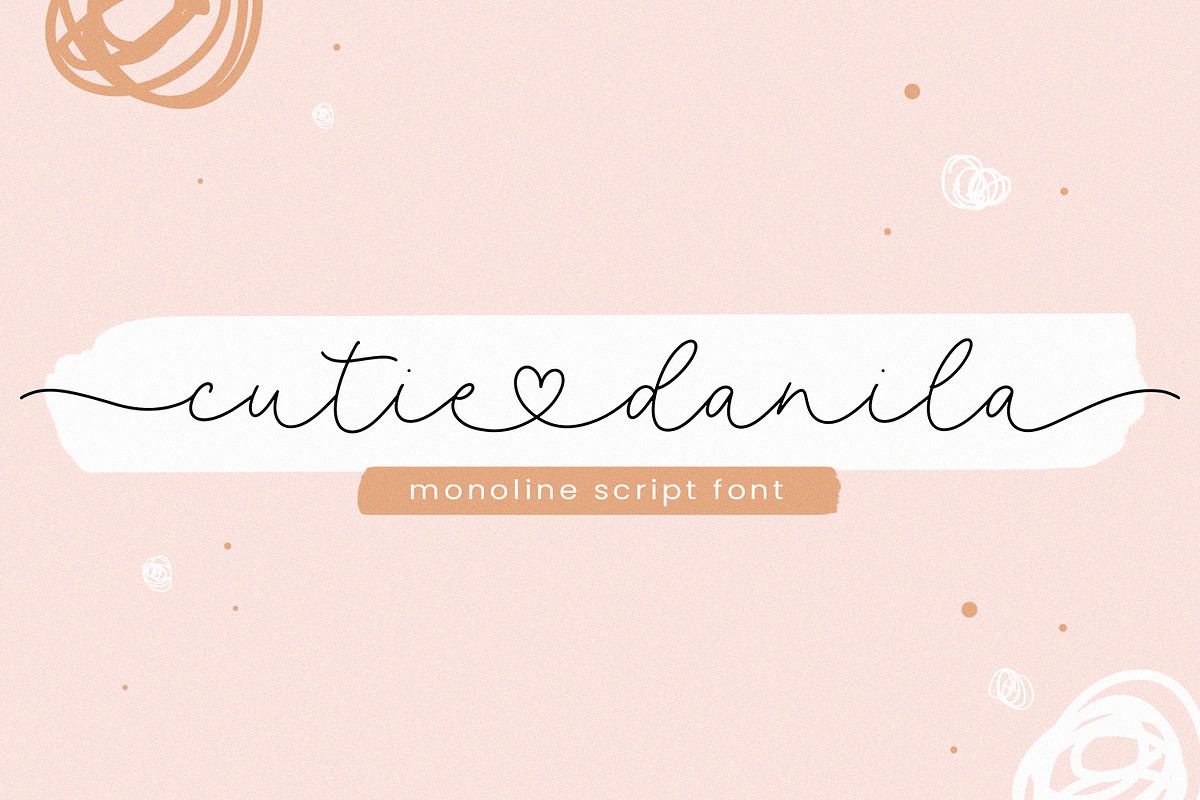
Please note, to use this font for commercial purposes, you must purchase the full version. Cutie Danila is a charming and elegant monoline script font that combines simplicity with sophistication. Its smooth, flowing letterforms make it perfect for creating logos, invitations, branding, and creative projects. Whether you're designing for a stylish brand, an event invitation, or a personalized greeting card, Cutie Danila adds a graceful and modern touch to your designs. Test it out and enjoy free download access for personal use. Experience the elegance and fluidity of Cutie Danila - Monoline Script Font Free Download before purchasing the commercial license. Add a personal, elegant touch to your designs with Cutie Danila.